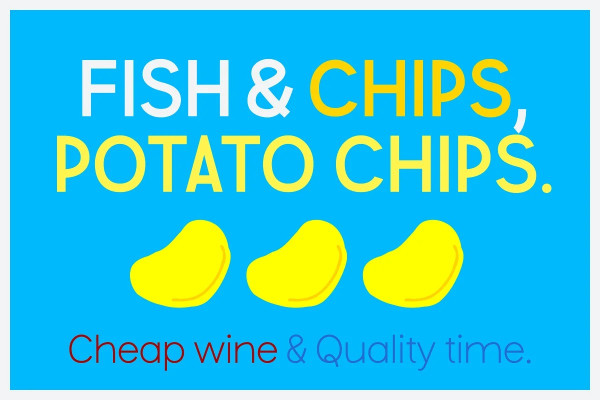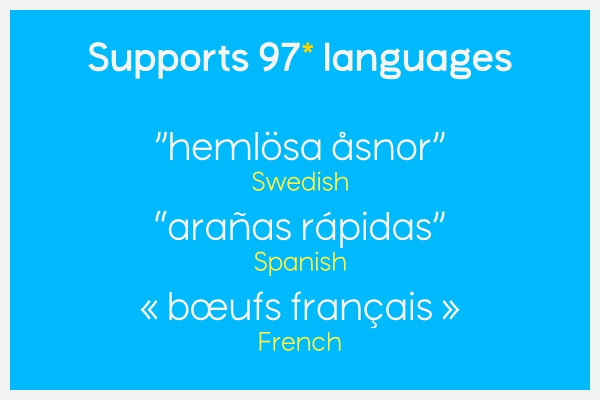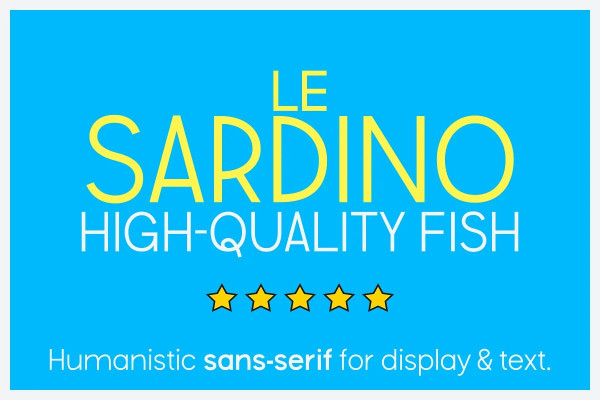
Le Sardino Font Family
Le Sardino Font is a handwriting inspired sans-serif typeface. It has a lot warmth and friendliness in its shapes. It’s perfect for posters, magazine and book covers, logos, and also for body text.